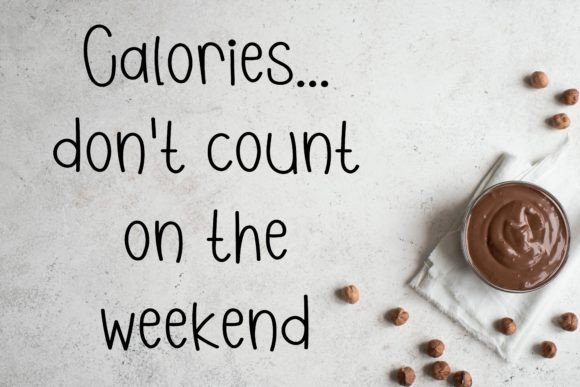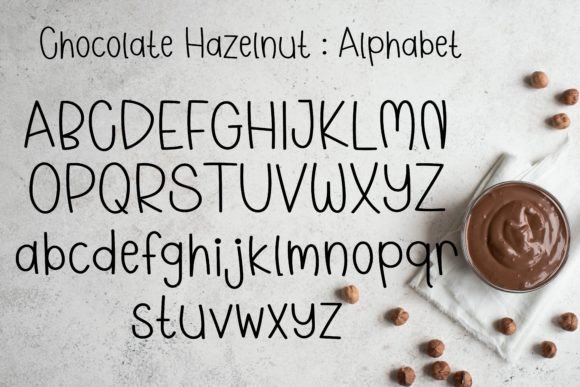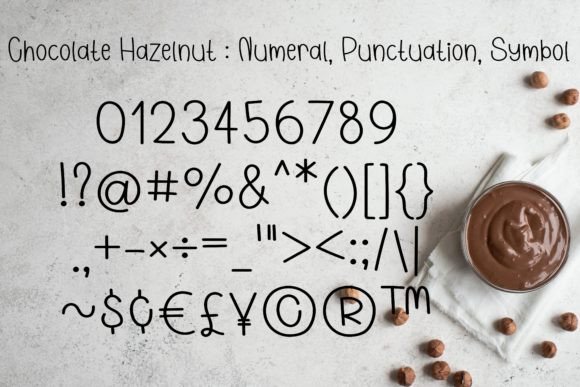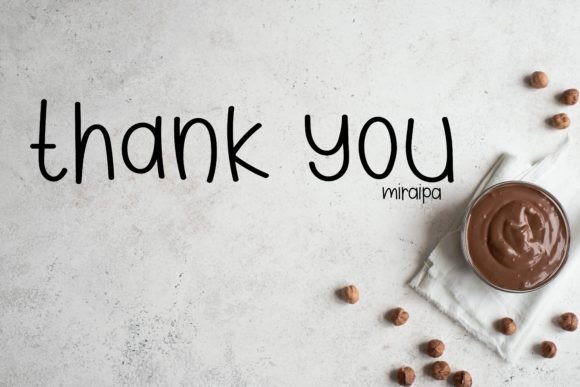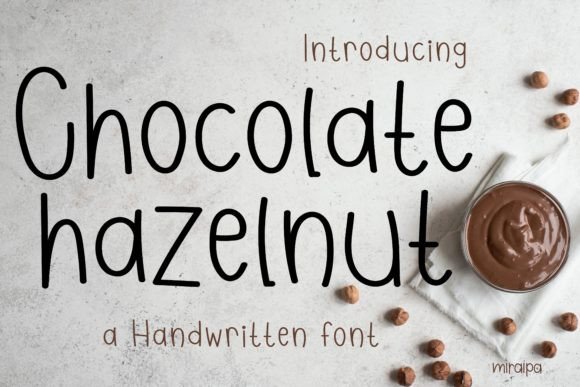
Introducing the Deliciously Charming Chocolate Hazelnut Font
Are you on the hunt for a font that adds a dash of whimsy and warmth to your designs? Look no further than the Chocolate Hazelnut font, a fun and friendly handwritten font that’s sure to delight. With its contemporary and fresh feel, this font is perfect for any design project you wish to create, from branding and packaging to invitations and crafts.
The Perfect Blend of Fun and Sophistication
Chocolate Hazelnut is a beautifully crafted font that strikes the perfect balance between playfulness and sophistication. Its handwritten charm makes it ideal for designs that require a personal touch, while its clean lines and elegant flow ensure it remains legible and versatile. Whether you’re a designer, crafter, or DIY enthusiast, this font is sure to become a favorite in your creative arsenal.
What Makes Chocolate Hazelnut Font So Special?
- Handwritten with love: Chocolate Hazelnut is a genuine handwritten font, infused with the warmth and personality of its creator. Each letter is carefully crafted to convey a sense of friendliness and approachability.
- Contemporary and fresh: This font boasts a modern feel that’s perfect for designs that require a bit of flair. Its clean lines, subtle curves, and balanced spacing make it both stylish and easy to read.
- Highly versatile: Chocolate Hazelnut is suitable for a wide range of design projects, from elegant branding and packaging to whimsical invitations, DIY crafts, and more.
Ideas for Using Chocolate Hazelnut Font
The possibilities are endless with Chocolate Hazelnut! Here are a few ideas to get you started:
- Branding and packaging: Add a touch of warmth and personality to your brand with Chocolate Hazelnut. Use it for logos, labels, and packaging design to create a cohesive and inviting look.
- Invitations and events: Create beautiful, one-of-a-kind invitations for weddings, birthday parties, and other special occasions with Chocolate Hazelnut.
- DIY crafts: Add a personal touch to your handmade crafts, such as knitting patterns, sewing projects, and scrapbooking, with this charming font.
- Social media graphics: Use Chocolate Hazelnut to create eye-catching social media graphics, such as quote graphics, blog post headers, and more.
Tips for Getting the Most Out of Chocolate Hazelnut Font
To make the most of this delightful font, keep the following tips in mind:
- Experiment with colors: Chocolate Hazelnut looks great in a variety of colors, from rich browns and creamy whites to bright and bold hues. Don’t be afraid to try out different color combinations to find the perfect fit for your design.
- Play with textures: Add depth and interest to your design by incorporating textures and patterns. Chocolate Hazelnut pairs beautifully with subtle textures, such as parchment or watercolor effects.
- Mix and match: Combine Chocolate Hazelnut with other fonts to create a unique and visually appealing design. Try pairing it with a clean sans-serif font for a striking contrast.